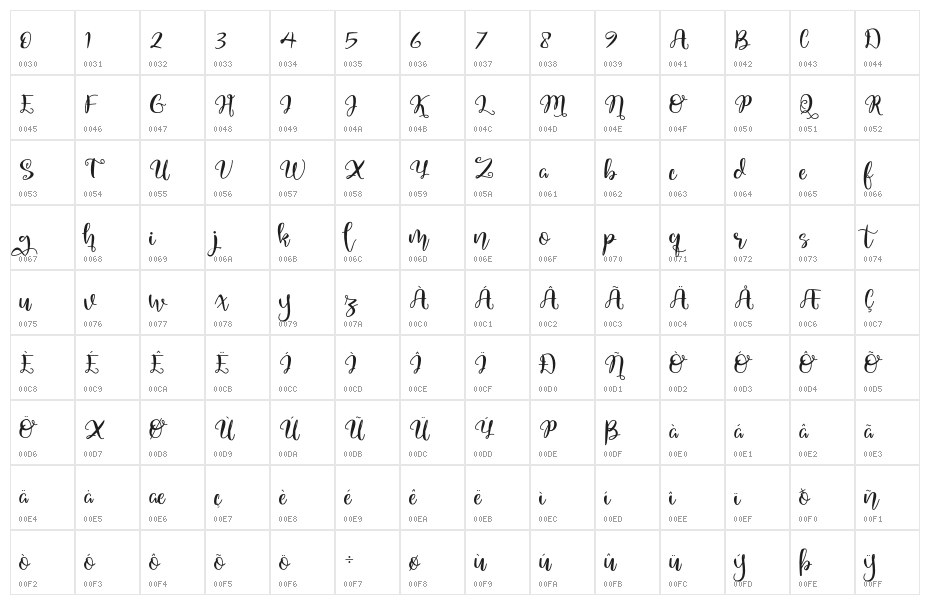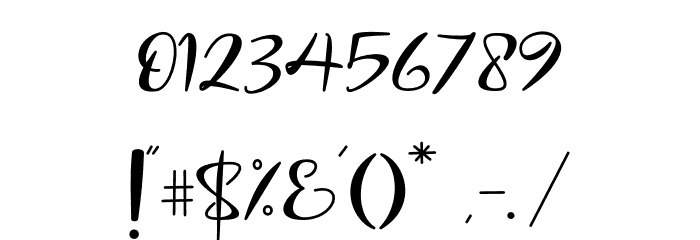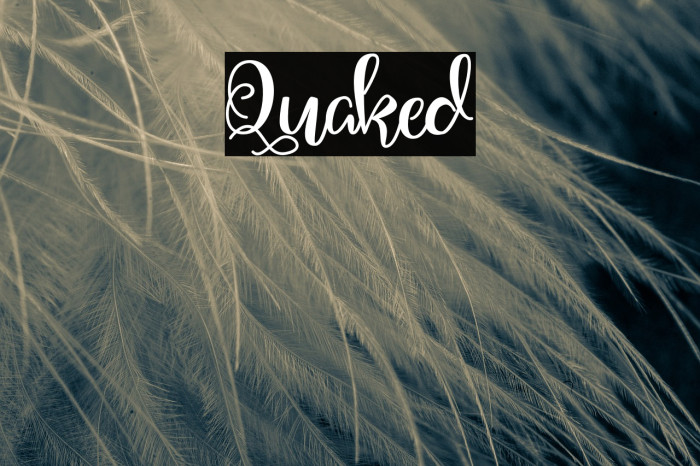
Quaked Font
Quaked Description
This font features a flowing, cursive style with elegant loops and swashes, giving it a sophisticated and artistic appearance. The uppercase letters are bold and ornate, with intricate details that add a touch of flair. The lowercase letters maintain a consistent style, with smooth curves and a slightly playful character. Numbers and special characters are designed to match the overall aesthetic, ensuring a cohesive look across all text. The font's decorative nature makes it ideal for projects that require a touch of elegance and creativity.
| Proposed Projects | Ideal for wedding invitations, greeting cards, branding, and decorative signage. |